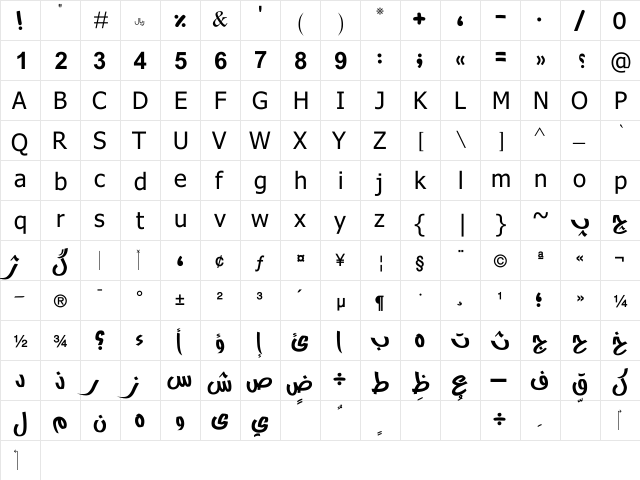
AGT Naimzai (Kids) Regular
| Designer | Ahmad Gul Totakhyl |
Design Context for AGT Naimzai (Kids) Typeface
AGT Naimzai (Kids) trades formality for fun, with bouncy, characterful letterforms that bring warmth and energy to any project.
Great for children's books, toy packaging, family event branding, and casual consumer-facing design.
Font Pairing: Pairs well with a rounded or humanist sans for body copy, maintaining the friendly tone without relying on AGT Naimzai (Kids) to carry extended reading.
Pro Tip: Avoid using AGT Naimzai (Kids) for long passages of text — it works best for headlines, labels, and short calls to action.